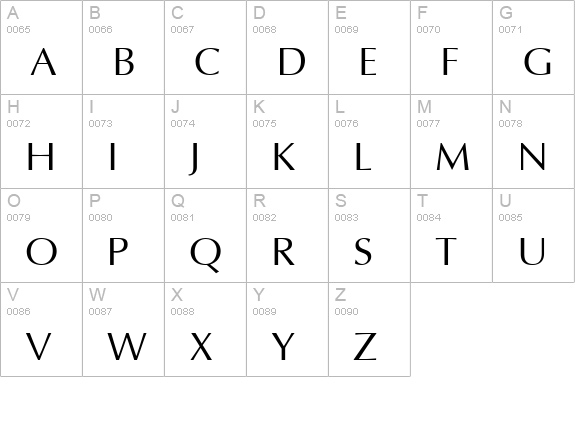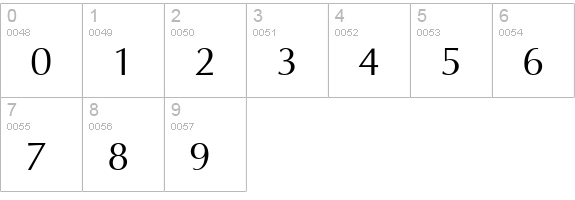
Ottawa font is a modern and elegant typeface that exudes sophistication and versatility. With its clean lines and balanced proportions, this font is perfect for a wide range of design projects, from branding to editorial work. The sleek and contemporary look of Ottawa font makes it a great choice for creating stylish logos, headlines, and promotional materials. The best part is that Ottawa font is completely free to use! You can easily download this font for your personal and commercial projects at FontsMarket.com. Don't miss out on this fantastic opportunity to add a touch of class to your designs with the Ottawa font.